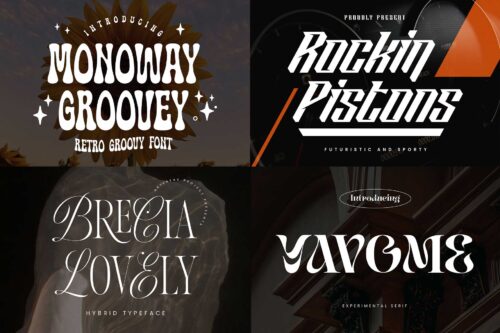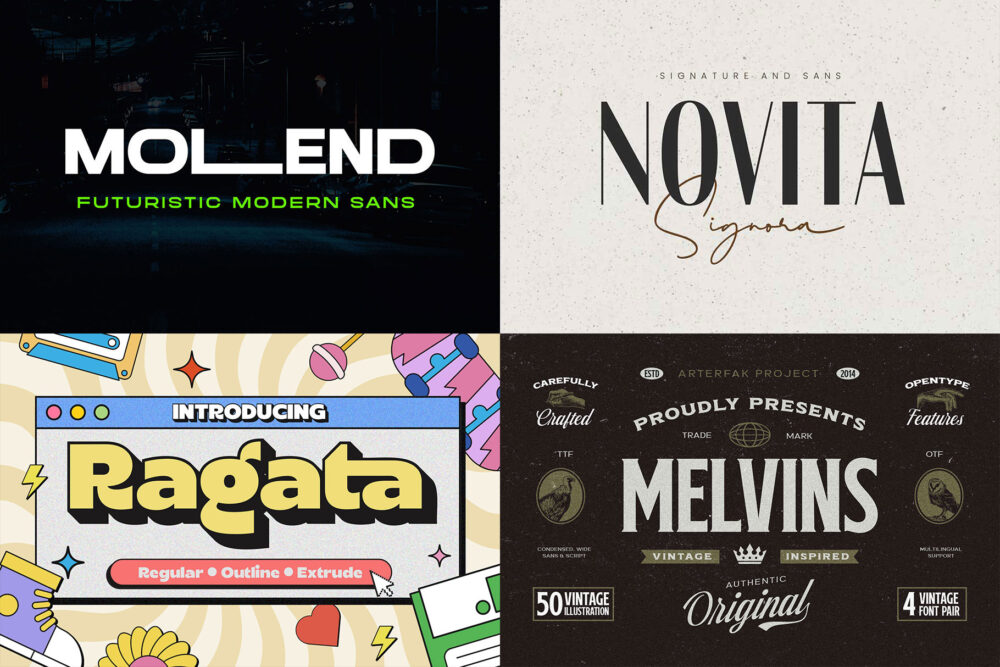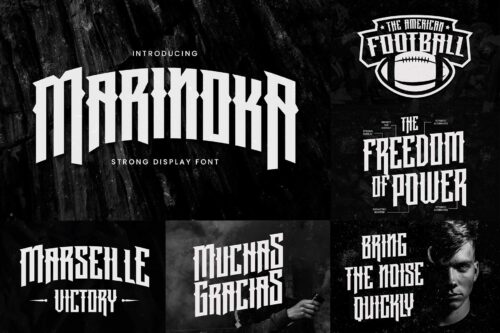
Massive Year-End Font Bundle As we wrap up another incredible year of creativity, we’re thrilled to bring you our biggest font collection ever — 150+ unique fonts from 30 premium typefaces!
Packed with a diverse range of styles — from bold brush and elegant script to futuristic, vintage, rustic, and modern classics — this bundle has everything you need to supercharge your creative projects.
Each font is carefully crafted and fully equipped with special characters, ligatures, and multilingual support, making them versatile for any kind of design. Perfect for logos, branding, posters, apparel, packaging, invitations, signage, and more, this collection is your all-in-one design arsenal.